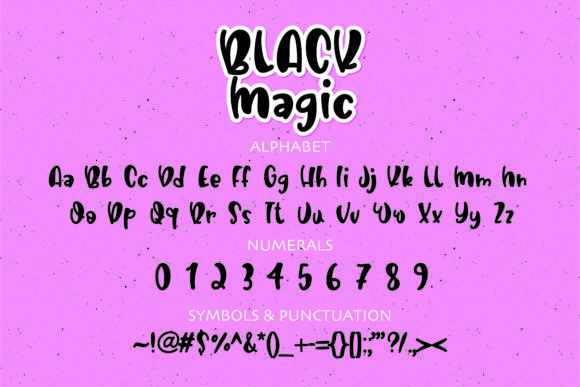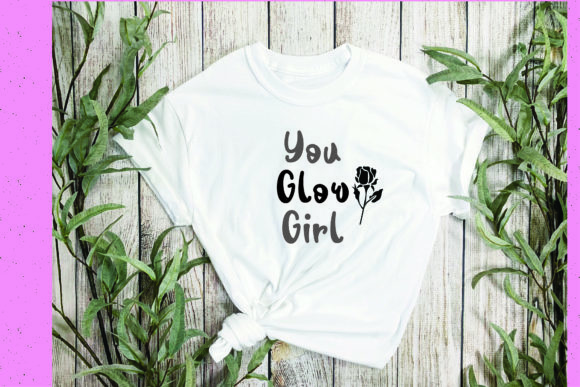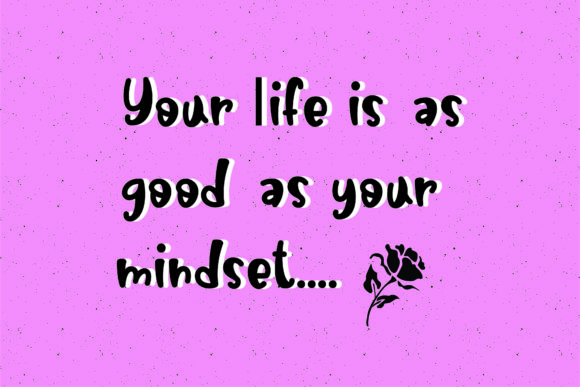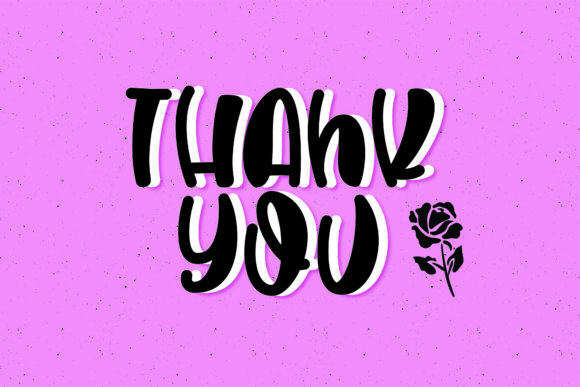
Unlock the Secrets of Black Magic Font: Elevate Your Designs with a Touch of Whimsy
Are you on the hunt for a font that adds a dash of personality to your designs? Look no further than the Black Magic Font, a cool, trendy, and fun handwritten font that’s perfect for creatives. Whether you’re a designer looking to spice up your Instagram posts or a crafter seeking a stylish calligraphy script for your DIY projects, Black Magic Font is the perfect tool to turn your ideas into stunning works of art.
The Charm of Black Magic Font
Black Magic Font boasts a unique, handcrafted aesthetic that’s sure to captivate your audience. Its elegant, cursive strokes and playful flair make it an excellent choice for a wide range of design applications. From social media graphics and posters to invitations and crafts, this versatile font is designed to bring a touch of magic to your creations.
Key Features of Black Magic Font
• Handwritten with love: Each letter has been carefully crafted by hand, giving the font a warm, personal feel that’s perfect for designs that require a human touch.
• Trendy and modern: Black Magic Font features a contemporary design that’s sure to keep your creations looking fresh and on-trend.
• Highly versatile: Whether you’re designing for print or digital platforms, this font adapts seamlessly to various mediums and applications.
Design Ideas with Black Magic Font
The possibilities are endless with Black Magic Font. Here are a few ideas to get you started:
• Instagram posts: Add a touch of elegance to your social media feed with beautifully styled quotes, captions, and graphics.
• DIY projects: Use Black Magic Font to create stunning calligraphy for handmade cards, invitations, and decorations.
• Posters and flyers: Make your promotional materials stand out with eye-catching headlines and text that showcase your brand’s personality.
• Branding and packaging: Incorporate Black Magic Font into your brand identity to add a touch of whimsy and sophistication.
Tips for Using Black Magic Font
To get the most out of Black Magic Font, keep the following tips in mind:
• Experiment with colors: Play around with different color combinations to find the perfect match for your design.
• Mix and match: Combine Black Magic Font with other fonts to create a unique look that reflects your brand’s style.
• Pay attention to spacing: Adjust the letter spacing to ensure your text is easy to read and visually appealing.